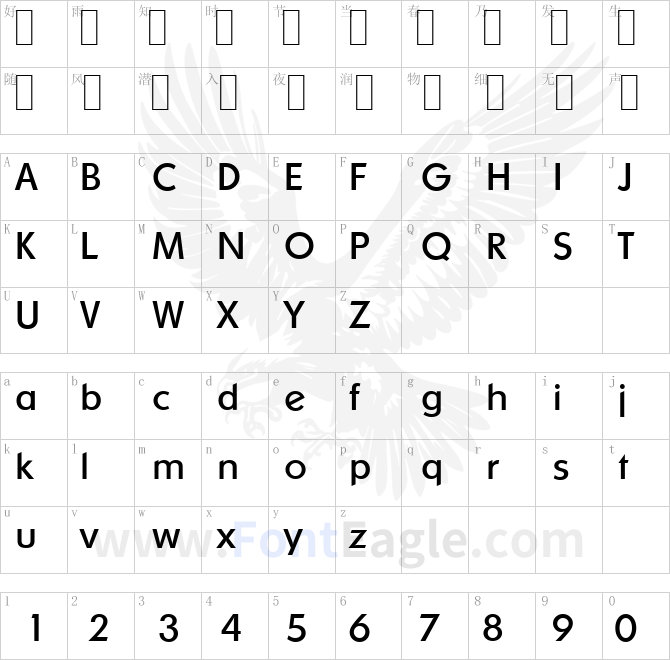
- Font name:OrnitonsSerial
- Font Subfamily ID:SoftMaker Software GmbH OrnitonsSerial-Regular
- Font Full Name:OrnitonsSerial-Regular
- Postscript:OrnitonsSerial